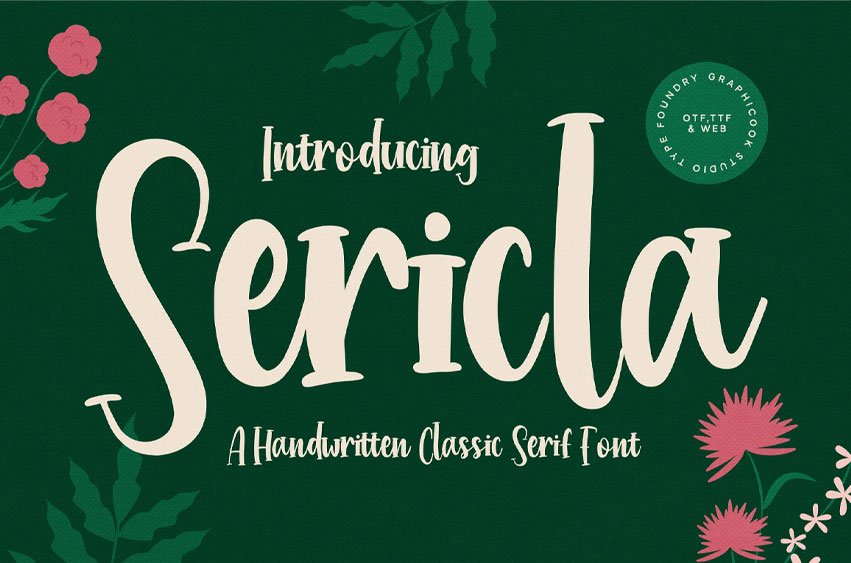
Sericla Font is a classic hand-drawn serif font with expressive brush strokes and a relaxed, playful personality. It brings a friendly, human touch. Perfect for quotes, packaging, and creative design projects.
It is perfect for headlines, logotypes, magazines, packaging, quotes, movies, games, cover albums, book covers, and flyers. It’s a perfect solution for creating eye-catching designs that stand out in any context.